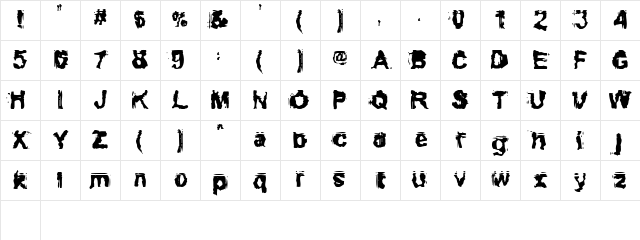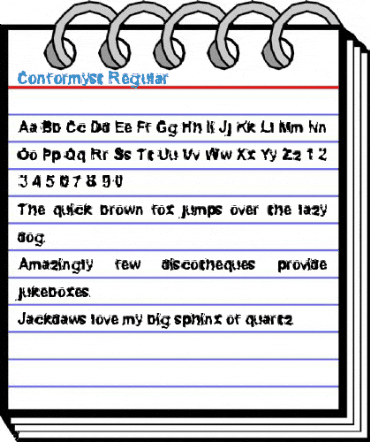
Conformyst Regular Free Font
Conformyst Regular
Design Context for Conformyst
Conformyst is a composed and adaptable typeface that performs quietly and consistently across a wide range of design contexts.
Pro Tip: Use Conformyst in both headline and body roles to test its range before committing to a single application.